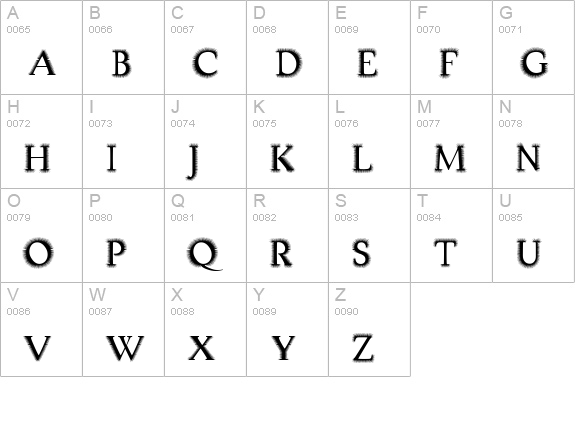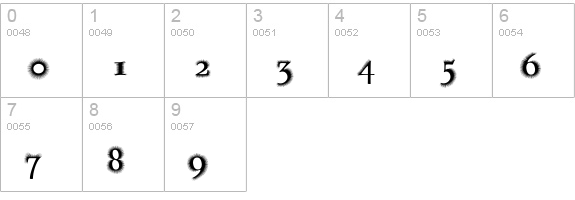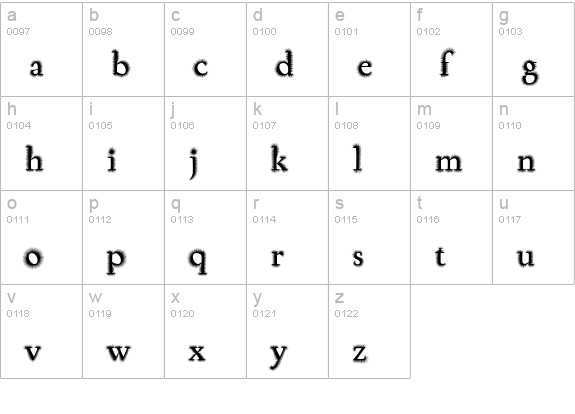
TaskHairy Font Details
Introducing TaskHairy font - a whimsical and playful typeface perfect for adding a touch of creativity to your design projects. TaskHairy features quirky and irregular letterforms that give off a fun and energetic vibe. This font is sure to make your text stand out and grab the viewer's attention. Best of all, TaskHairy is available for free download at FontsMarket.com. Whether you're working on a poster, invitation, or branding project, TaskHairy is a versatile font that can add a unique twist to your designs. Don't miss out on this opportunity to add a touch of fun to your next project with the TaskHairy font - download it now for free at FontsMarket.com!